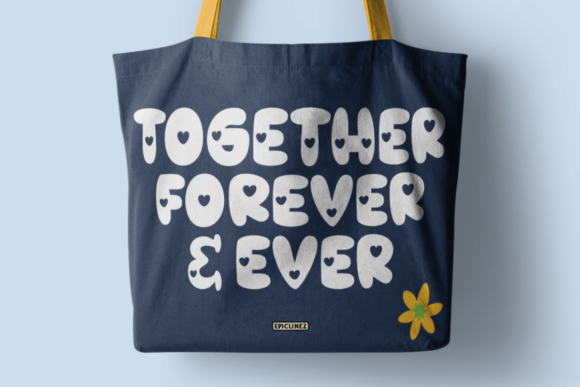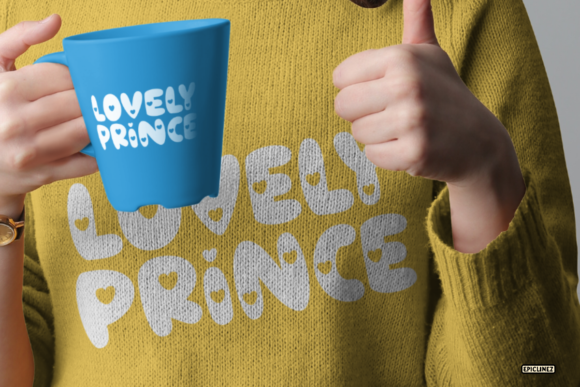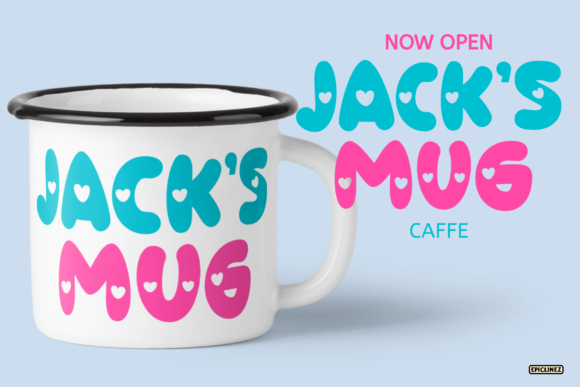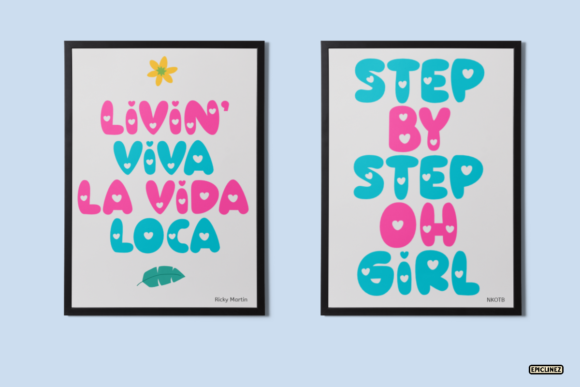
Introduction to Love Castle Font
Remember that magical moment when you finally nailed the design for your project? The one that made you feel like you’re on cloud nine? For designers, those moments are what make all the late nights and early mornings worth it. And, as a designer, you’re probably always on the lookout for that perfect design resource to elevate your creative project to the next level.
Enter Love Castle Font – a delightful display font that’s sure to capture the hearts of your audience. This charming font is perfect for adding a touch of whimsy to your designs, from letterheads and titles to logos. With its high-quality design and transparent background, Love Castle Font is a versatile design resource that’s waiting to be unleashed on your next creative project.
Key Features of Love Castle Font
- Features a unique, whimsical design that adds a touch of magic to any project, making it ideal for children’s books, wedding invitations, and other creative endeavors.
- Includes a comprehensive character set, including uppercase and lowercase letters, numbers, and special characters.
Honest Review: Love Castle Font
As a designer, I’m always on the lookout for high-quality fonts to elevate my creative projects. The Love Castle Font is one of the latest additions to my design resource library, and I must say it’s a gem. ✨
- Unique Design: The Love Castle Font boasts a unique and playful design that’s perfect for adding a touch of whimsy to any project.
- High-Quality Vectors: The font is available in high-quality vector format, making it easy to scale and manipulate without losing any details.
- Transparent Background: The transparent background option allows for seamless integration with any design, making it a versatile design resource.
While the Love Castle Font is a great addition to any designer’s toolkit, there are a few limitations to keep in mind: ⚠️
- Limited Character Set: The font only includes a limited character set, which may not be suitable for projects that require a wide range of characters.
- No Bold or Italic Variations: The font is only available in regular weight, which may not be ideal for projects that require bold or italic text.
Common Use Cases for Love Castle Font
The Love Castle Font is ideal for romantic-themed designs, such as wedding invitations, Valentine’s Day cards, and love-themed posters. It’s also great for creative projects that require a touch of whimsy and elegance.